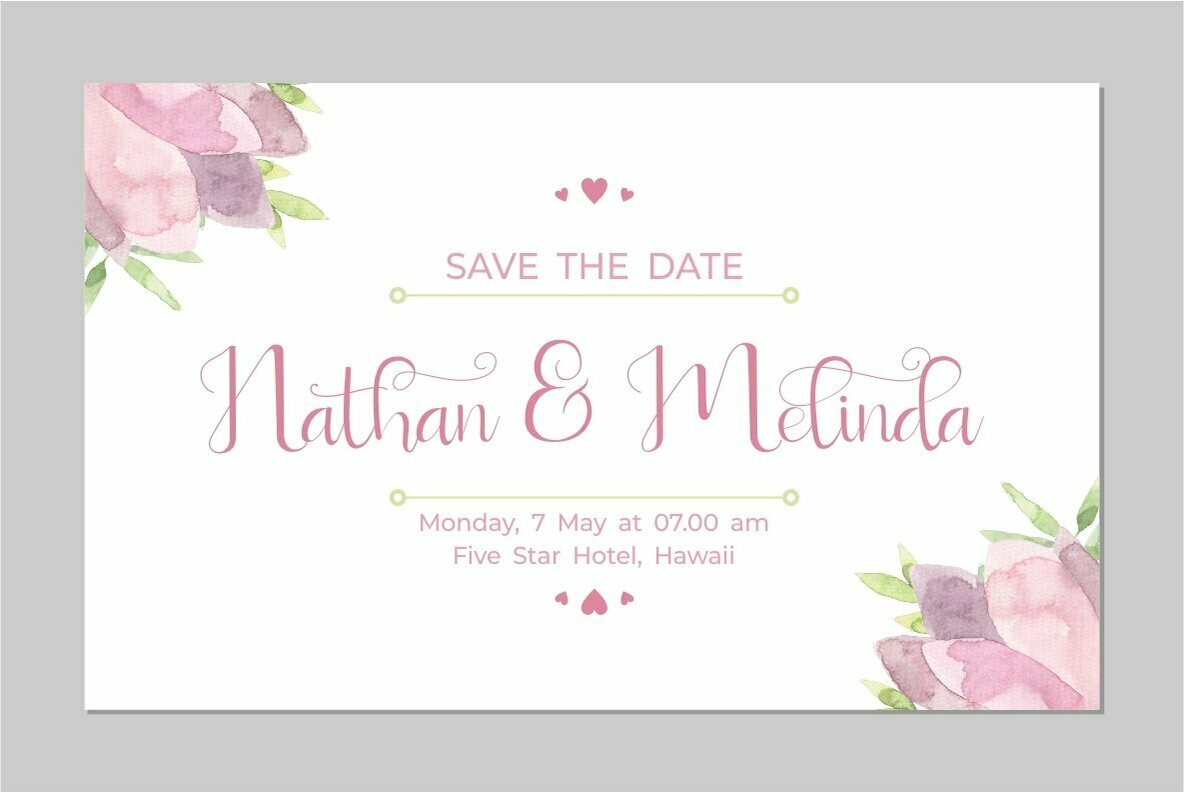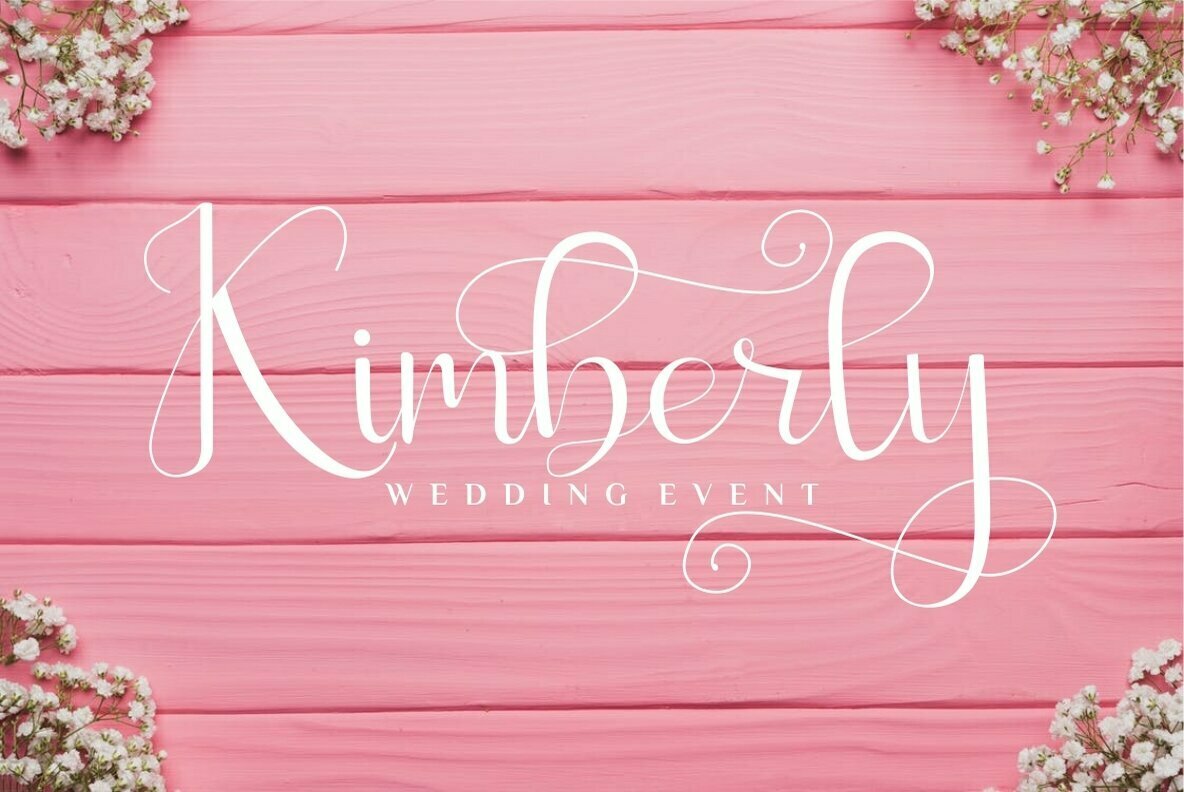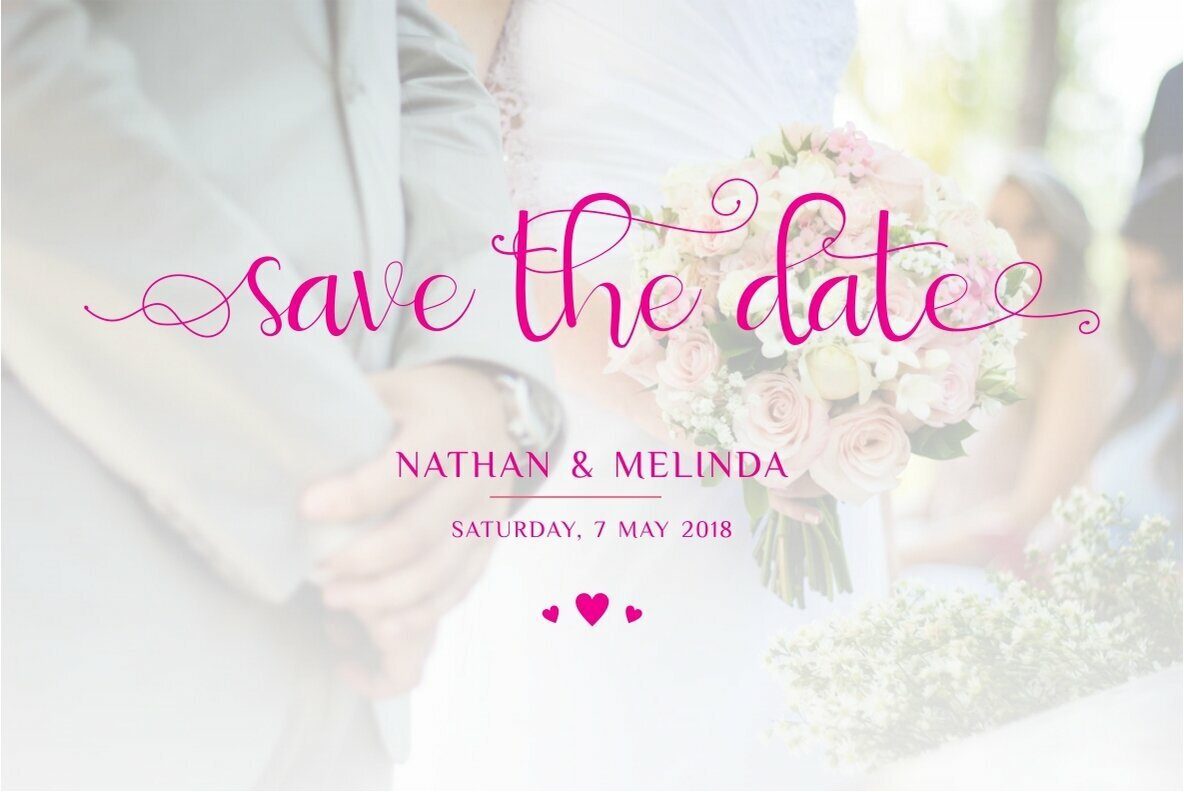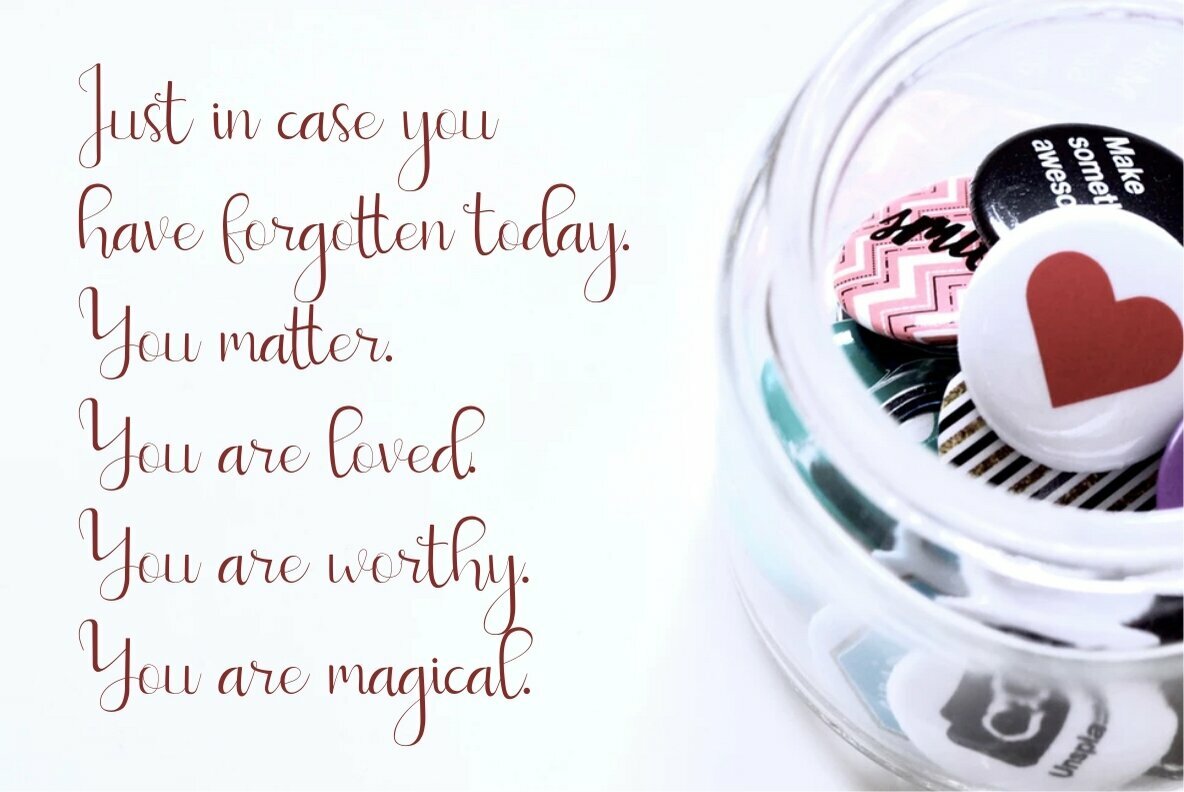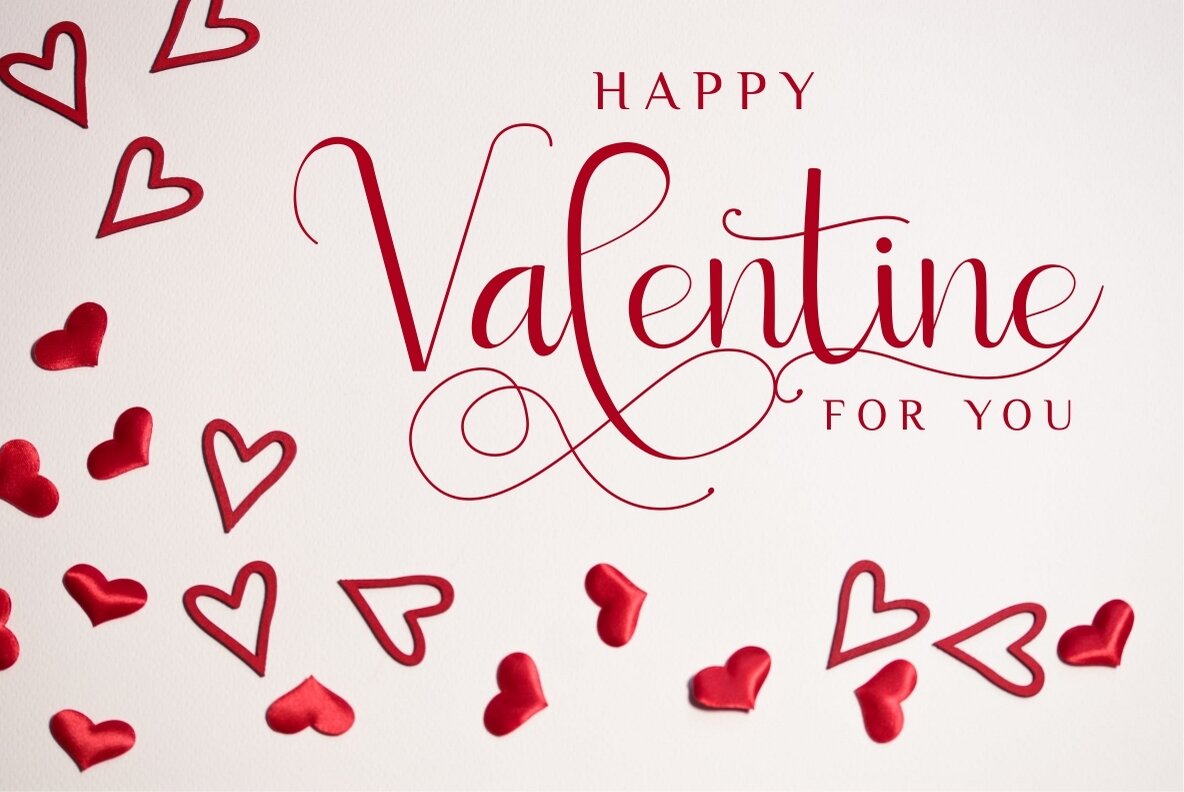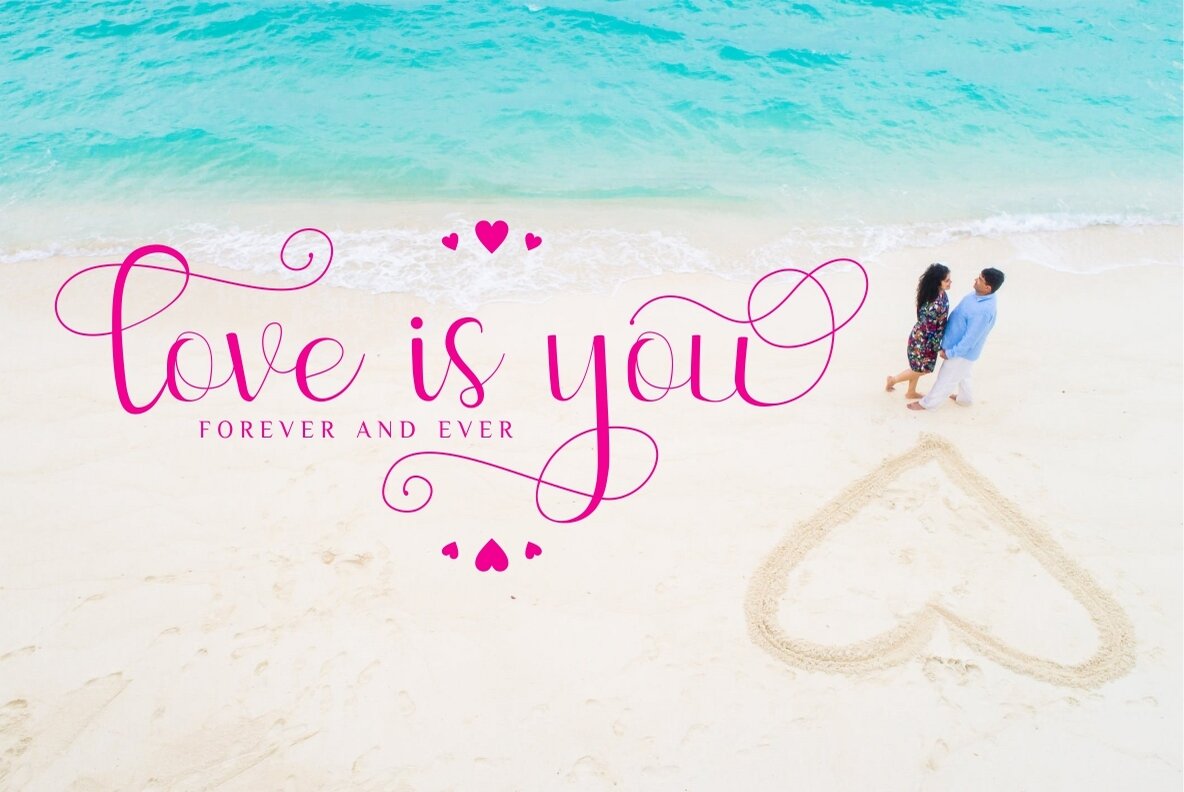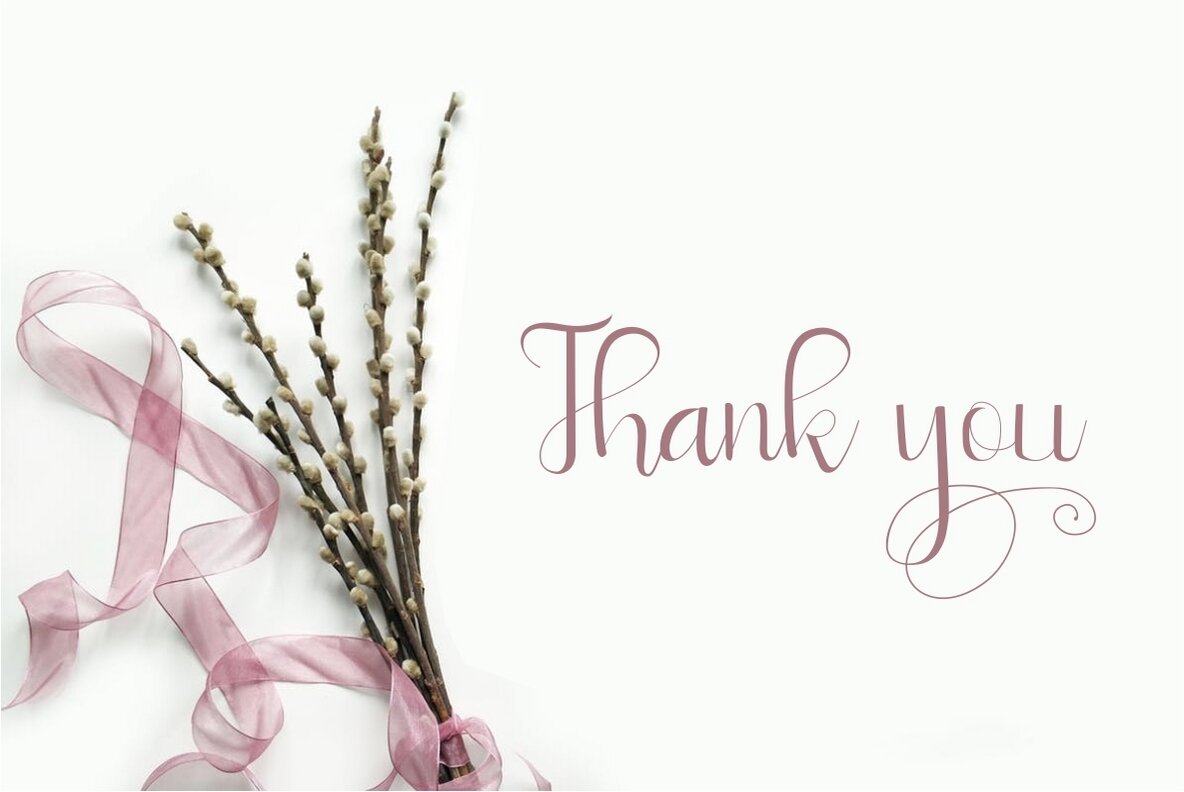
Sweetyhearts Font
Sweetyhearts
Sweetyhearts is a modern calligraphy typeface that exudes a girly and feminine aesthetic. Its unique charm comes with an array of alternates, making it ideal for a variety of projects that require a delicate touch. From branding and letterhead to wedding invitations and cards, Sweetyhearts provides the versatility to bring elegance and personality to your designs.Sweetyhearts: Feminine Modern Calligraphy